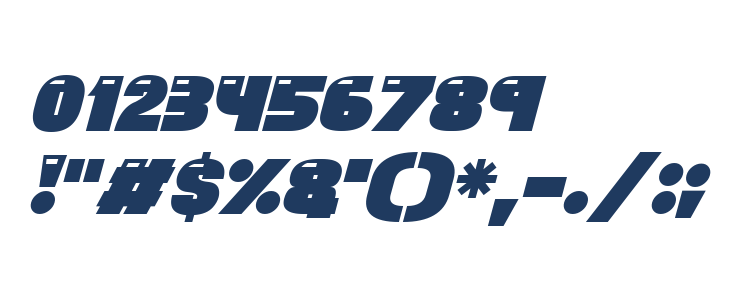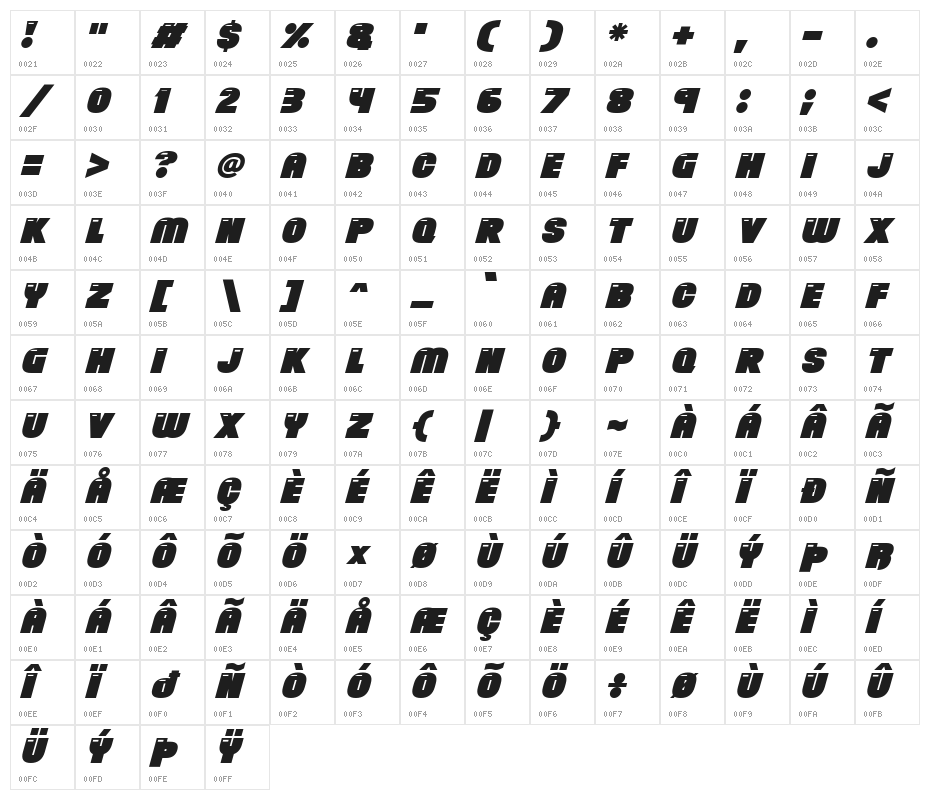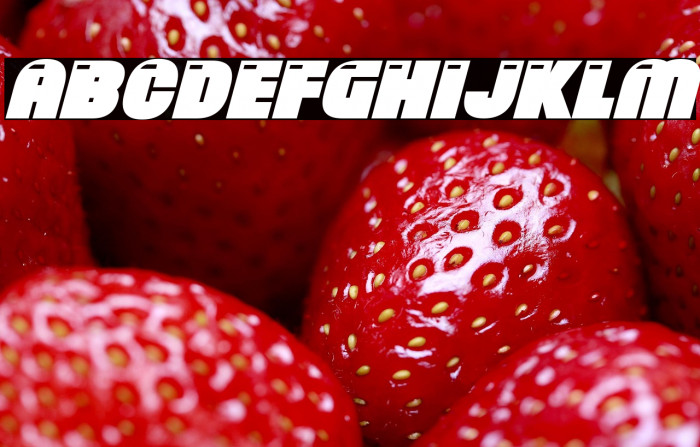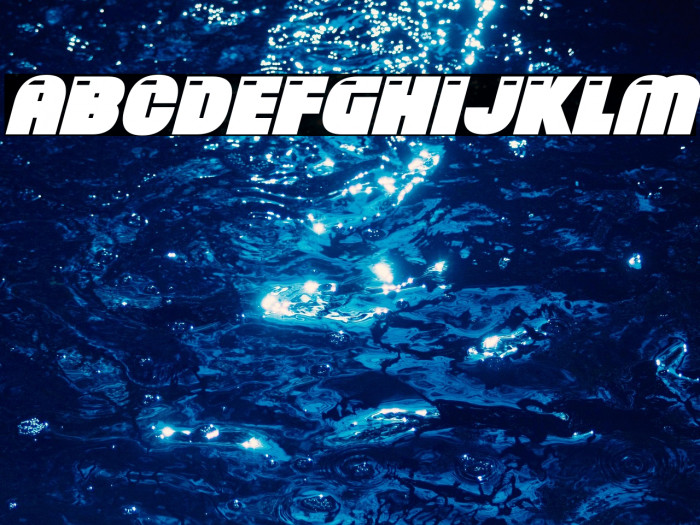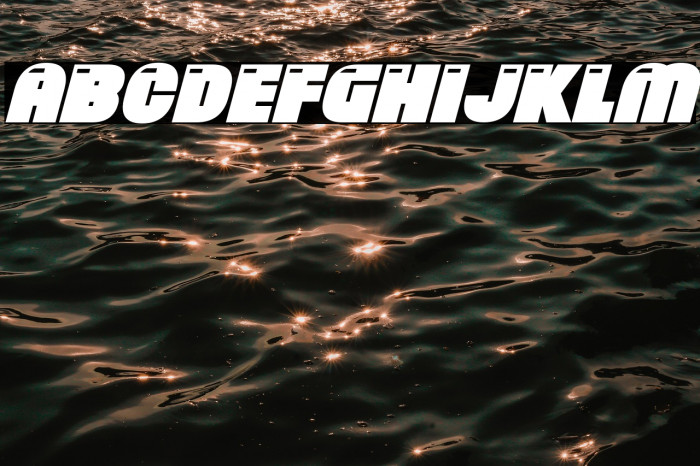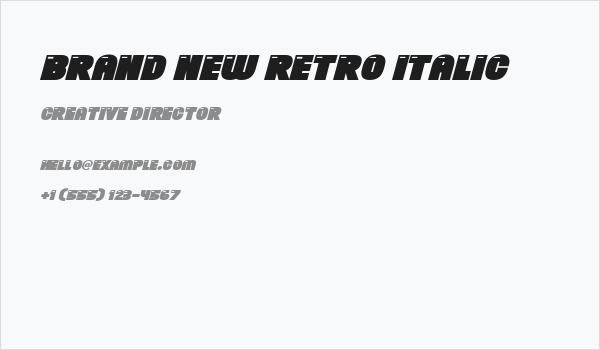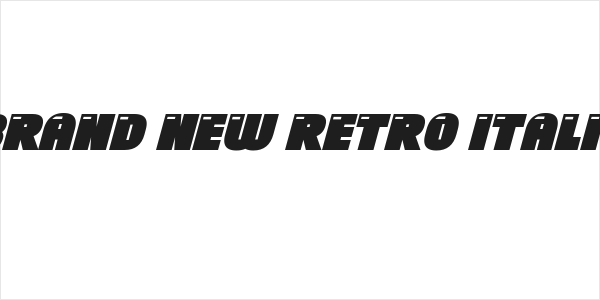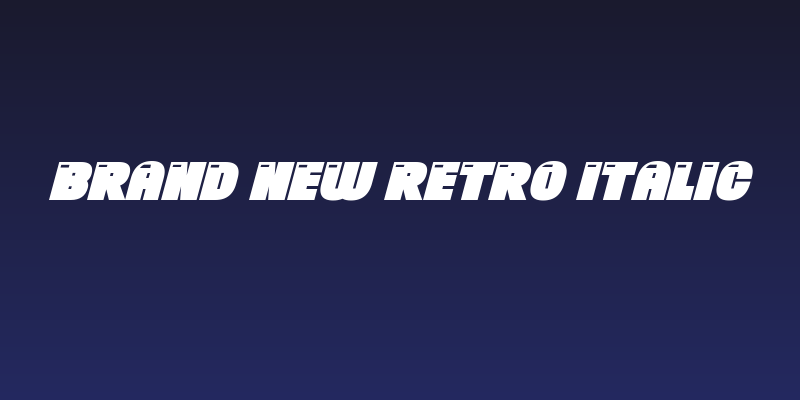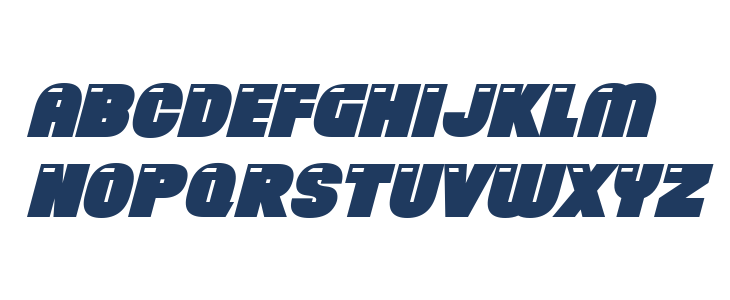
Brand New Retro Italic Font
Brand New Retro Italic Description
This font features a bold, italicized style with a distinctly retro flair. The characters are thick and robust, with a slight slant that adds a dynamic sense of movement. The design incorporates sharp angles and clean lines, giving it a modern twist on a classic look. The uppercase and lowercase letters maintain a consistent weight, while the numerals and special characters blend seamlessly into the overall aesthetic. This font is perfect for capturing attention and making a statement with its strong visual presence.
| Overall Style | Retro, Modern |
| Proposed Projects | Ideal for vintage-themed posters, retro branding, eye-catching headlines, and dynamic logo designs. |